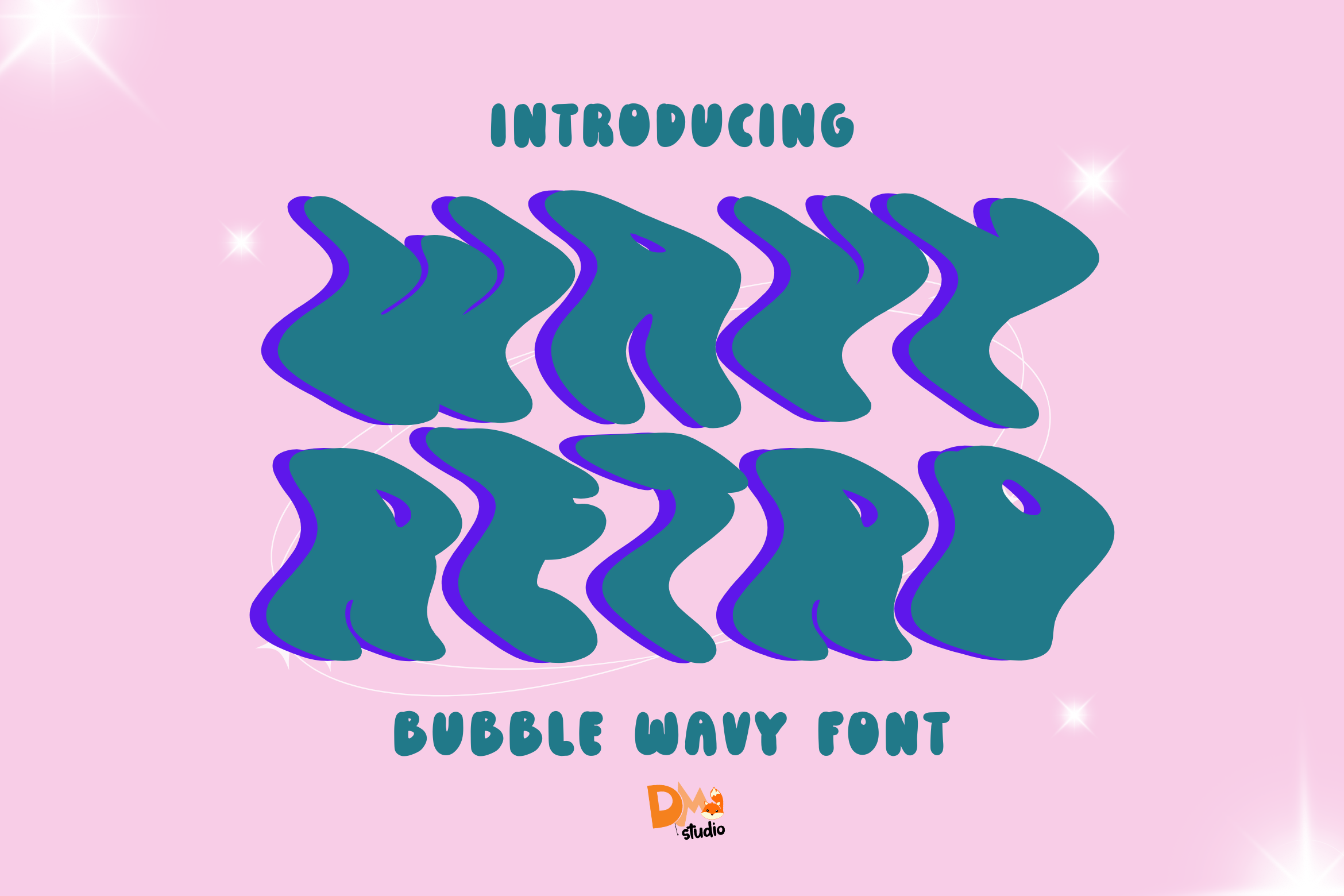
Wavy retro Font
Wavy Retro Font is a groovy and nostalgic typeface inspired by the vibrant designs of the 70s and 80s. With its fluid, wavy letterforms, this font adds a playful yet sophisticated retro touch to your projects. Perfect for posters, album covers, branding, packaging, and any design that craves a bold and funky vibe, the Wavy Retro Font is sure to make your creations stand out. Embrace the wave of retro aesthetic and add a unique vintage flair to your work!
- Wavy, Groovy Design: Funky letterforms that bring vintage-inspired vibes to your creations.
- Retro Aesthetic: Ideal for 70s/80s-inspired designs, adding charm and nostalgia.
- Versatile Application: Perfect for posters, branding, album covers, packaging, invitations, and more.
- Uppercase and Lowercase Letters: Flexibility for various creative layouts.
- Punctuation and Symbols: Includes a full set of punctuation, numbers, and symbols.